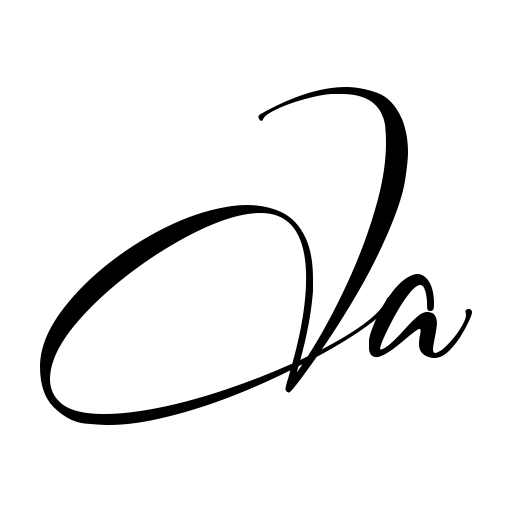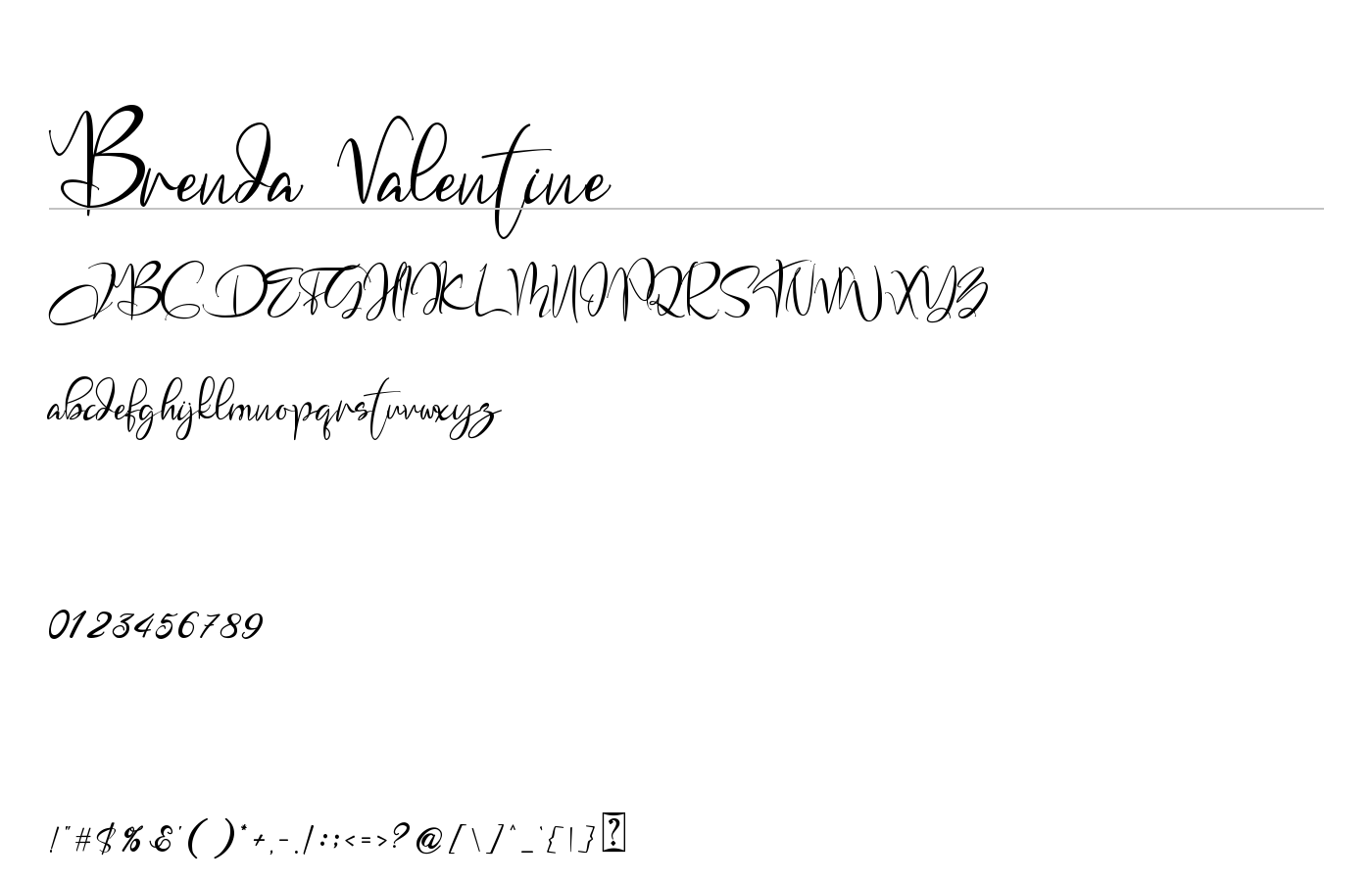
Brenda Valentine is an elegant and flowing script font with a delicate, handwritten feel that combines both slender and slightly bold strokes for a stylish contrast. Its tall, narrow letterforms and graceful curves make it perfect for adding a sophisticated, personal touch to wedding invitations, branding, and boutique packaging, where a sense of romance and refinement is desired.
Brenda Valentine Font
About Brenda Valentine Font
| Designer | Letterara 2019 |